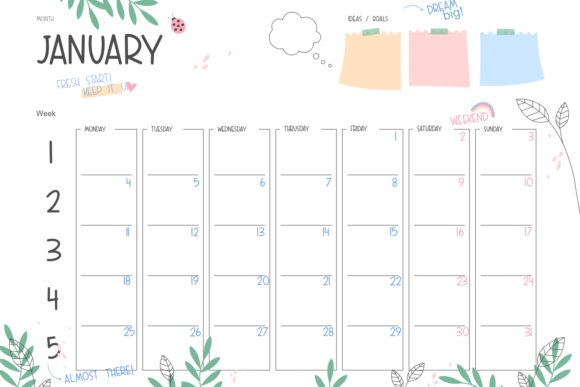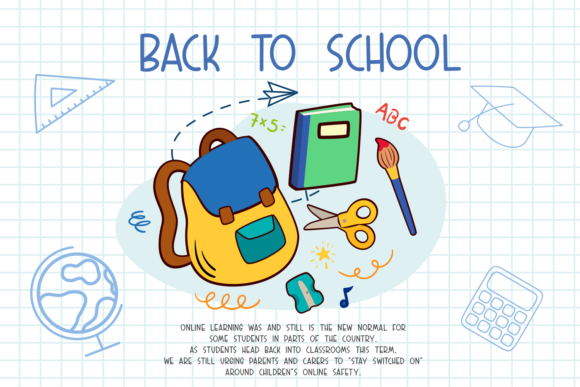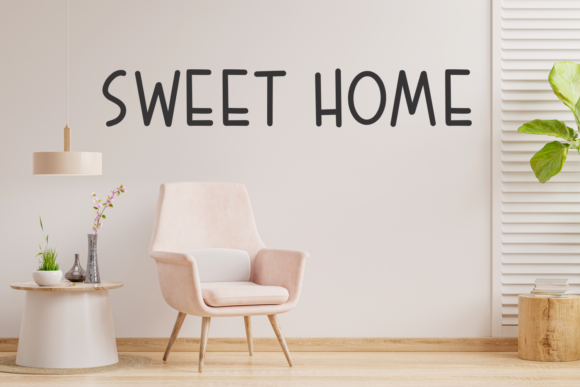
About Simple Planner Font
Simple Planner, a clean and natural handwritten font, effortlessly brings a touch of simplicity and authenticity to your creative projects. Whether you’re engaged in crafting, digital design, presentations, or crafting greeting cards, this font is the perfect choice.
The inherent charm of Simple Planner lies in its clean lines and natural handwriting, creating a look that is both approachable and versatile. It seamlessly adapts to various applications, allowing you to infuse a genuine and personal feel into your work.
In crafting, Simple Planner becomes a valuable asset, adding a handcrafted touch to your creations. Its simplicity enhances the overall design, making it suitable for a wide range of DIY projects, from scrapbooking to homemade gifts.
For digital design, Simple Planner offers a refreshing and genuine aesthetic. The font’s natural handwriting quality adds a unique and authentic element to digital graphics, ensuring your designs stand out with a personal touch.
Presentations come to life with Simple Planner, as the font adds a friendly and approachable vibe to your slides. Its clean and legible style ensures that your audience can easily engage with the content, while the natural handwriting brings a human touch to the digital realm.
Creating greeting cards is a delightful experience with Simple Planner. The font’s natural and clean design allows your heartfelt messages to take center stage, creating cards that are both visually appealing and emotionally resonant.
Whether you’re designing for personal or professional use, Simple Planner serves as a versatile and reliable choice. Its clean and natural handwritten aesthetic makes it a go-to option for a variety of creative endeavors, where simplicity and authenticity are paramount.
Embrace the effortless charm of Simple Planner as it enhances your projects with a clean and natural touch, making every creation a testament to genuine craftsmanship and thoughtful design.